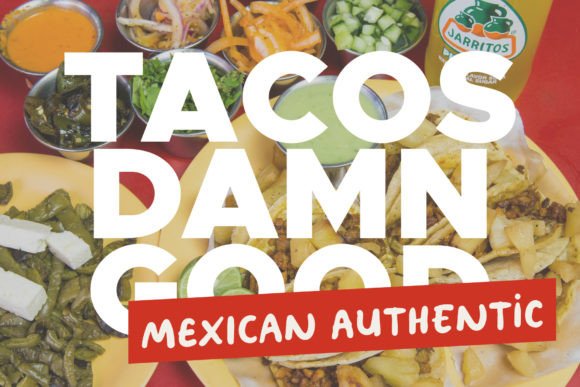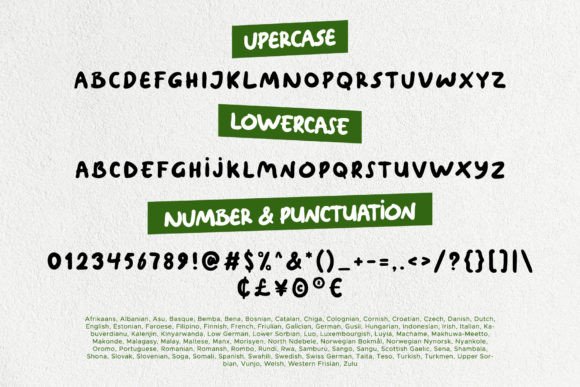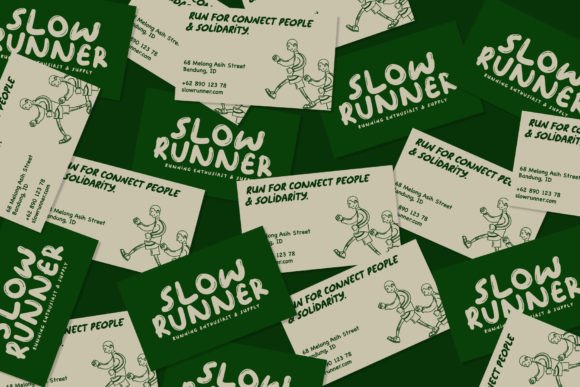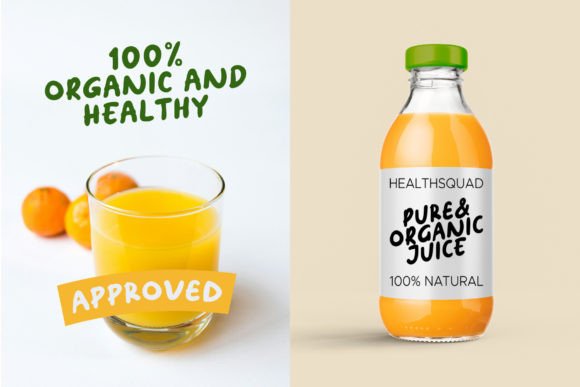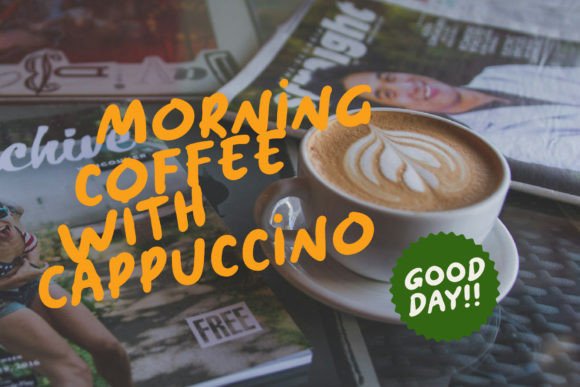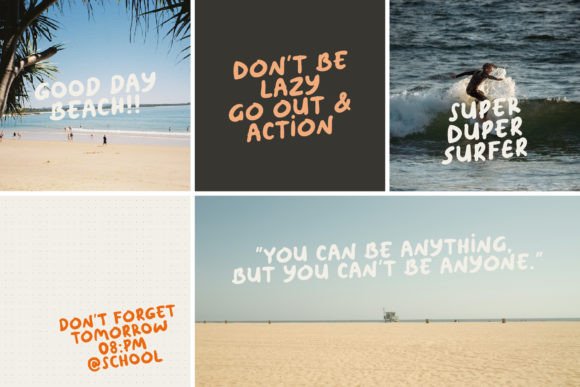
Introduction to Pinokyo Font
Have you ever been in a creative flow, surrounded by ideas and inspiration, only to struggle with the perfect font to bring your vision to life? This is where the Pinokyo Font comes in – a high-quality design resource that’s sure to spark your creativity and elevate your project.
As a designer, you know the importance of finding the right font to convey the tone and atmosphere of your work. With its playful and charming sans serif handwriting style, the Pinokyo Font is perfect for creating a warm and inviting atmosphere that’s sure to engage your audience. Whether you’re working on a children’s book, designing a greeting card, or crafting a social media post, this versatile font is sure to add a touch of personality and charm to your work.
Key Features of Pinokyo Font
- High-quality design resource with a whimsical and playful style, perfect for creative projects.
- The font family includes multiple styles and weights, providing designers with a versatile design resource for various creative projects.
- Pinokyo Font is an excellent choice for designers looking for a unique and eye-catching design element to elevate their creative project.
Honest Review: Pinokyo Font
I recently stumbled upon the Pinokyo Font, and I must say it’s been a game-changer for my creative project. As a designer, I’m always on the lookout for high-quality design resources that can elevate my work. The Pinokyo Font is one such resource that has truly impressed me.
What works well: ✨ The Pinokyo Font is incredibly versatile, making it suitable for a wide range of creative projects. Its unique blend of whimsical and modern elements adds a touch of sophistication to any design. The transparent background also makes it easy to layer with other design elements. Plus, it’s available for free download, which is always a bonus!
Limitations: ⚠️ While the Pinokyo Font is generally a great resource, I do find that it can be a bit overused in certain designs. Additionally, some users may find the font to be a bit too playful for more formal projects.
Overall, I’m thoroughly impressed with the Pinokyo Font. Its high-quality design, versatility, and transparent background make it a must-have for any designer. If you’re looking for a creative resource to elevate your designs, I highly recommend giving the Pinokyo Font a try.
Tips for Getting the Most Out of Pinokyo Font
For the best results, use Pinokyo Font in combination with other design elements that complement its unique style. Experiment with different font sizes, colors, and arrangements to find the perfect look for your project.
Pinokyo Font is perfect for a variety of creative projects, including graphic design, digital art, and typography-based designs. Its transparent background makes it ideal for creating overlays, icons, and other design elements that require a high level of customization.